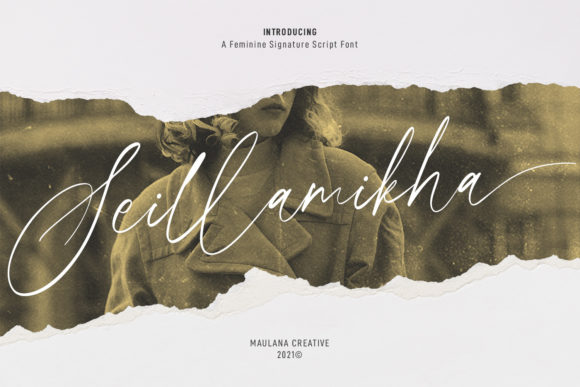
Unleash a world of elegance and sophistication with Seillamikha Font, the epitome of chic and stylish script typography. This exquisite font family, meticulously crafted by Maulana Creative, is a masterpiece that emanates confidence and versatility, ready to transform your creative projects into captivating works of art.
Seillamikha isn't just a font; it's an experience that elevates your designs to new heights of sophistication. With its graceful curves, sweeping strokes, and a hint of playfulness, this script font is perfect for adding a touch of timeless beauty to logos, branding, invitations, and any project that demands a touch of class.
Dive into the depths of Seillamikha's character set and discover a treasure trove of stylish alternates and ligatures, allowing you to customize your text with endless possibilities. Create stunning combinations that dance harmoniously across your designs, leaving a lasting impression that speaks volumes.
Whether you're a seasoned designer or just starting your creative journey, Seillamikha Font is your perfect companion. Its user-friendly nature and extensive language support make it accessible to everyone, ensuring that your creative vision knows no bounds.
Don't settle for ordinary fonts that blend into the background. Embrace the extraordinary with Seillamikha Font and watch as your designs transform into captivating masterpieces that command attention and leave a lasting impression.